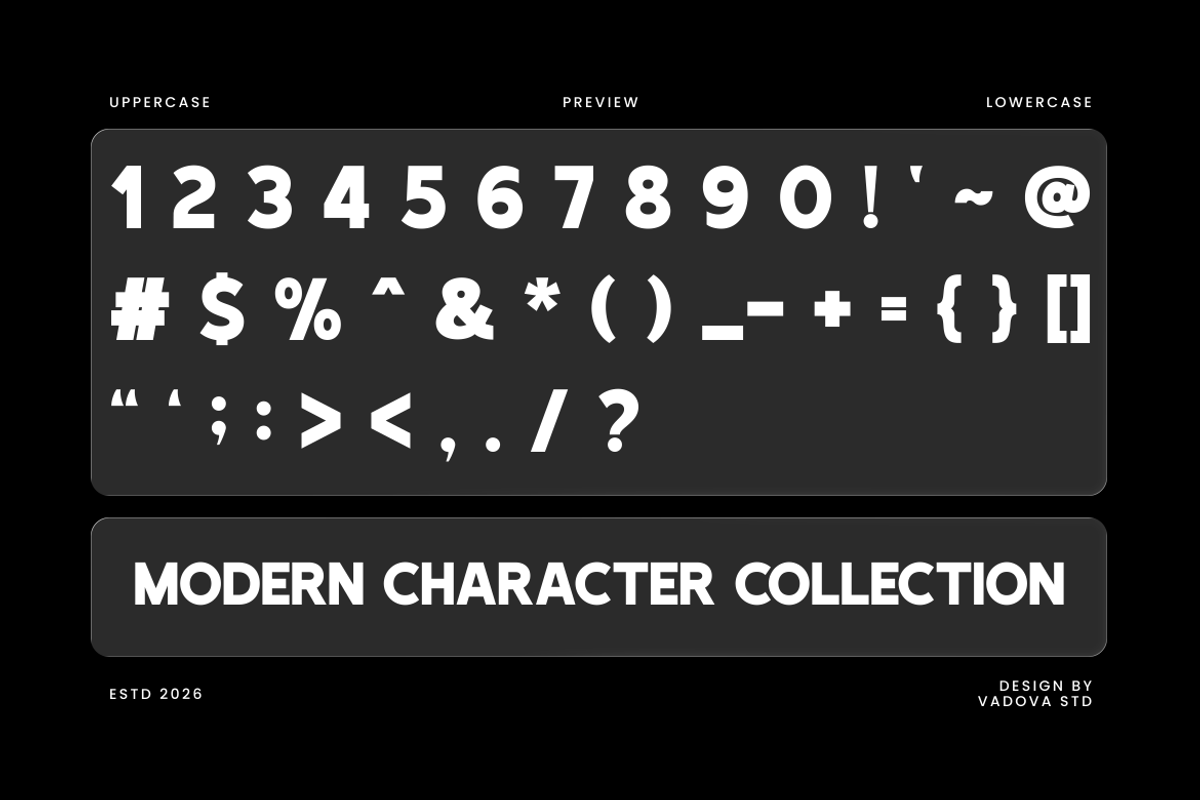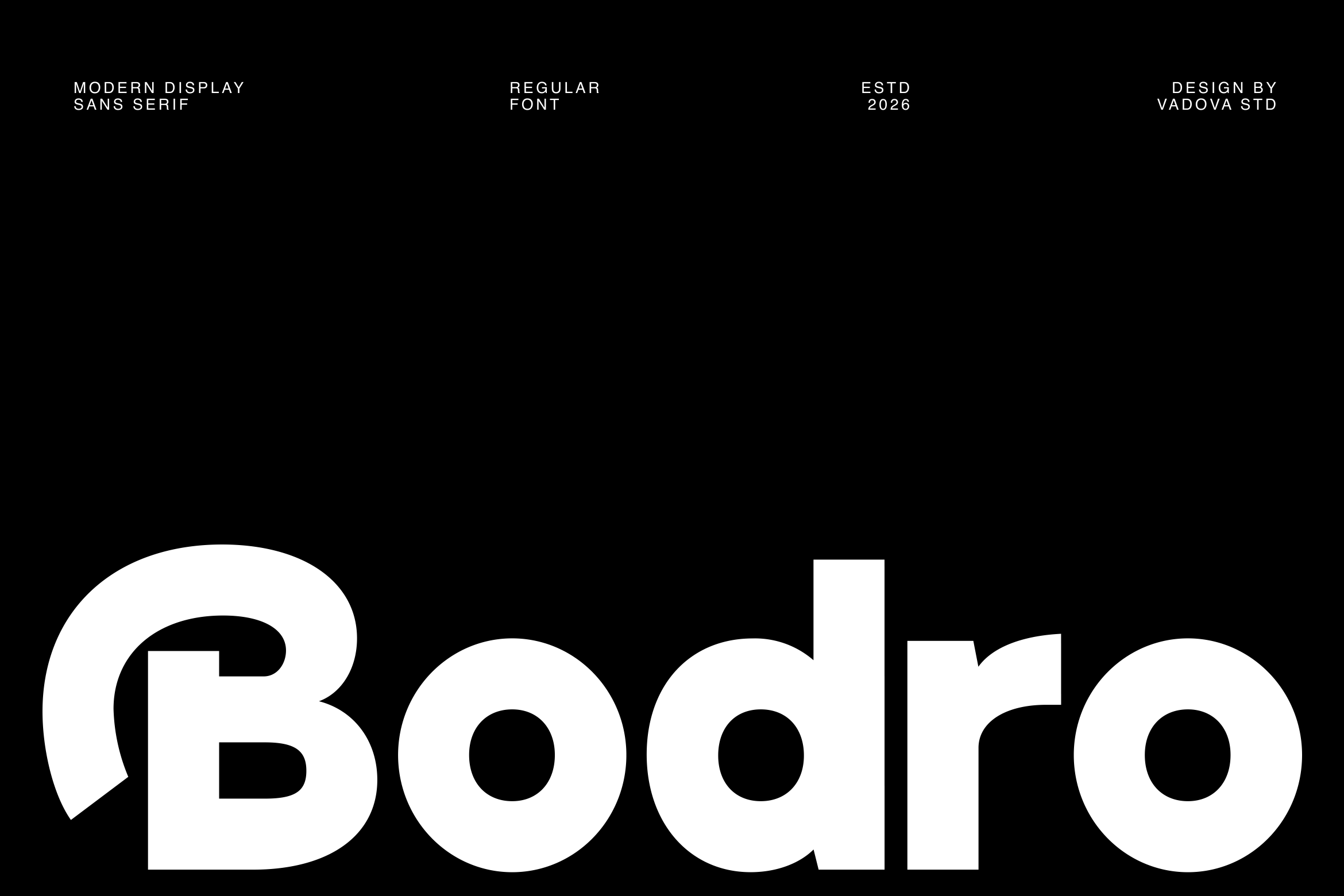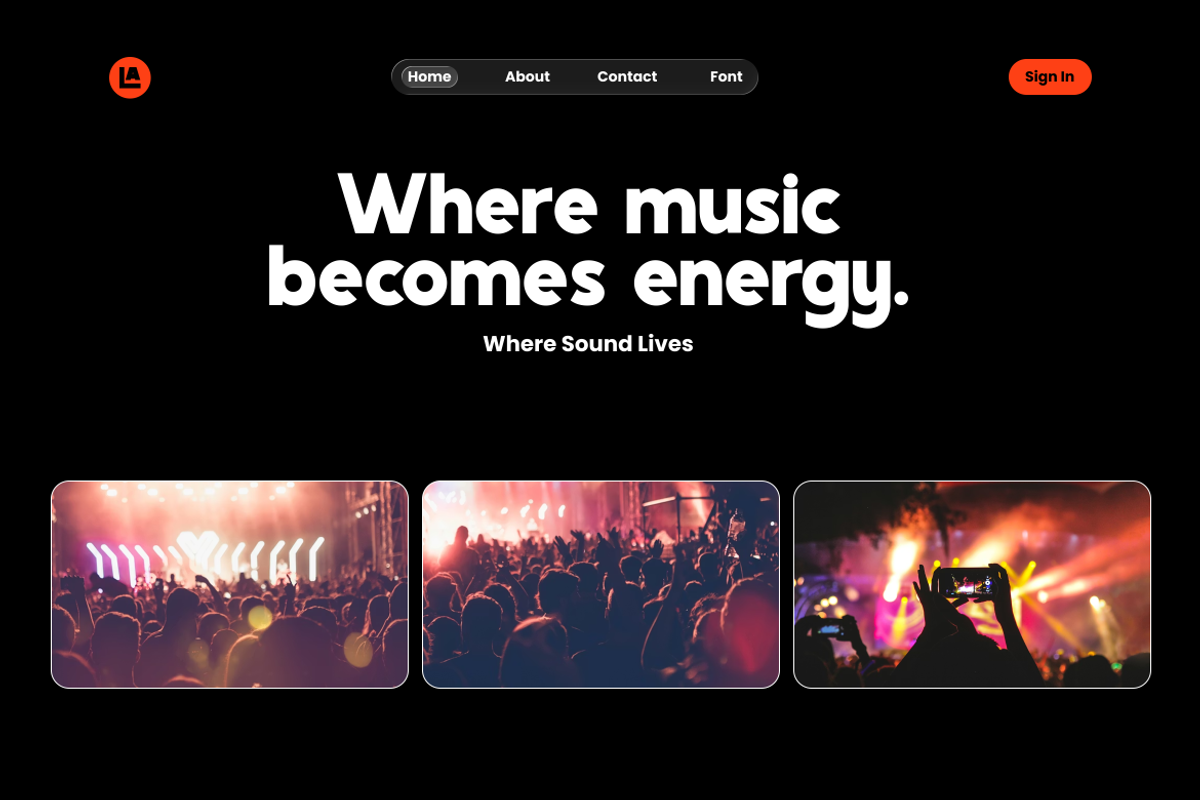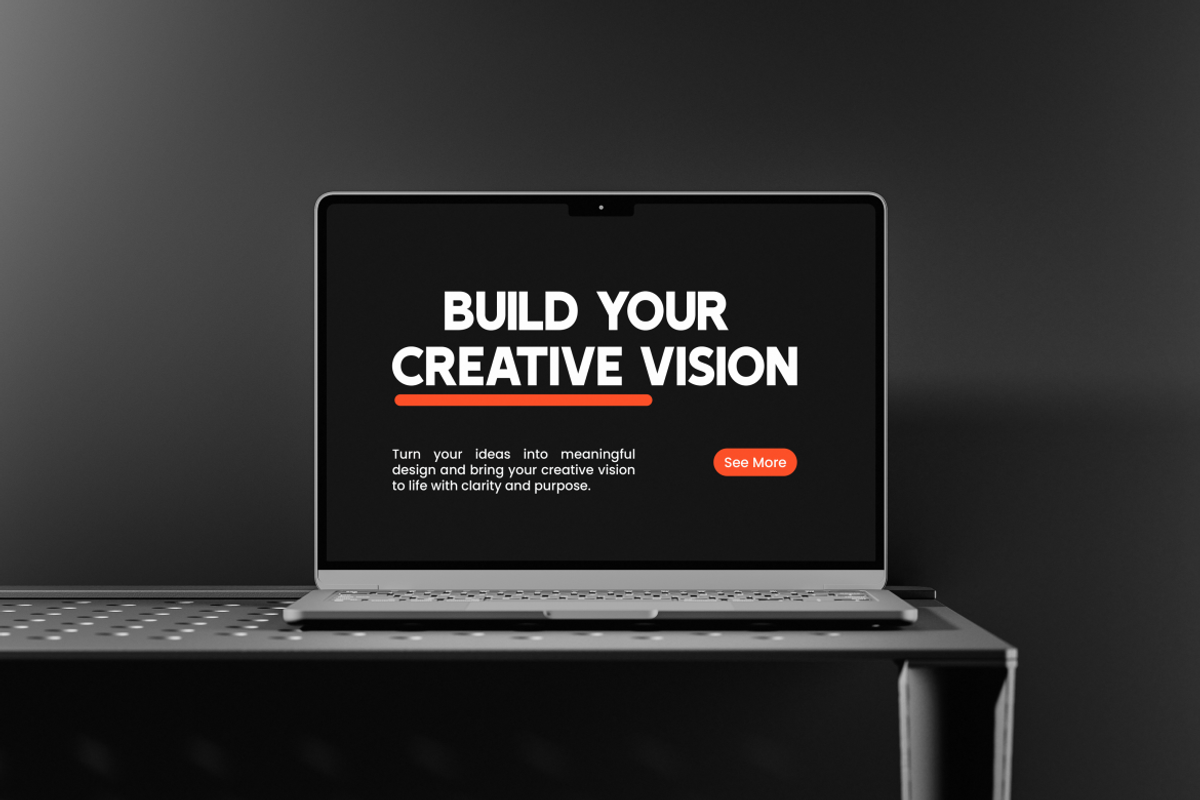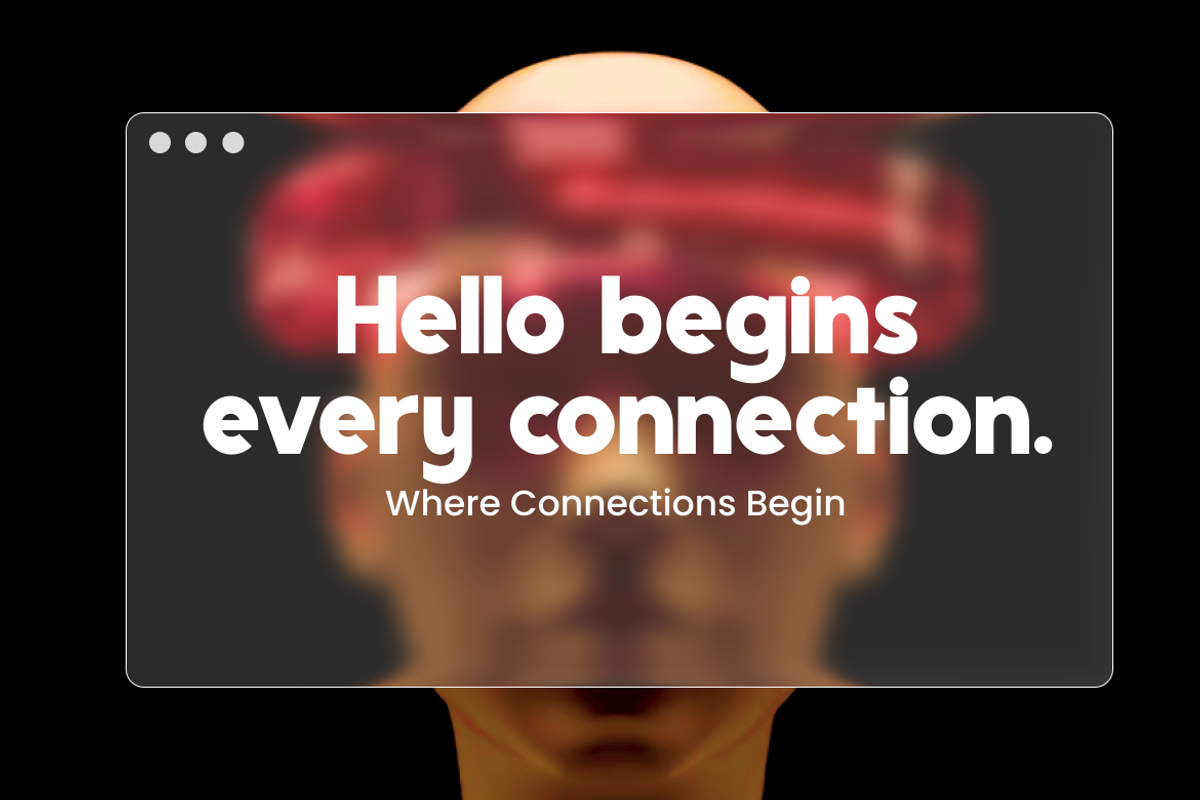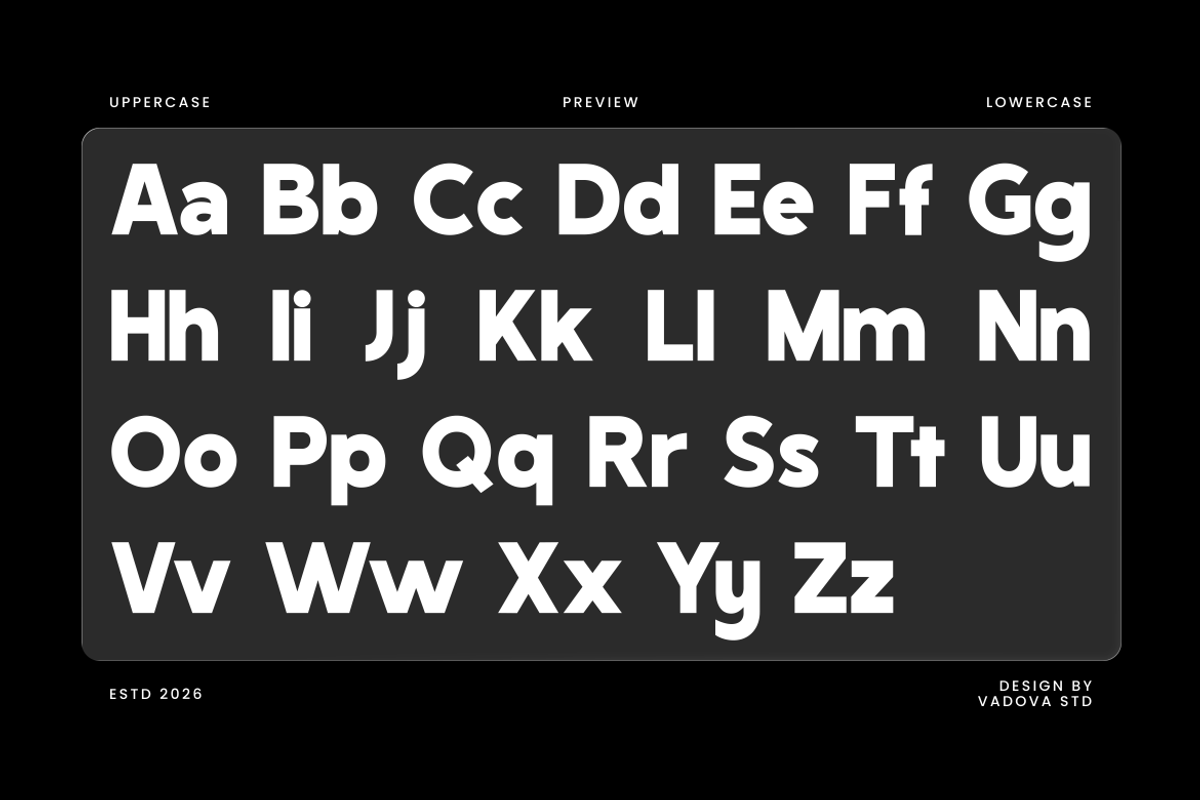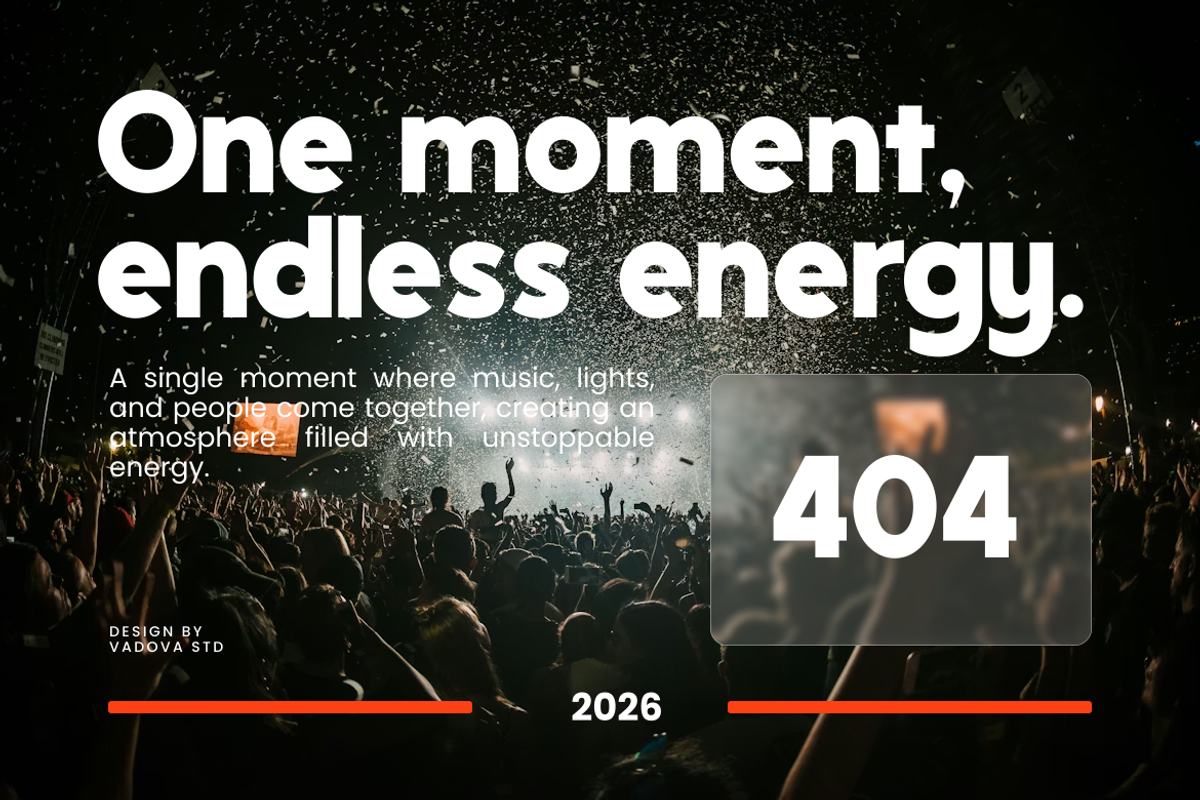
Bodro Modern Sans Serif Display Font
Bodro is a modern bold display sans serif font designed with strong geometric structure and confident contemporary proportions. The letterforms feature thick strokes, smooth curves, and balanced spacing that create a powerful visual presence while maintaining clarity and readability. This typeface includes uppercase, lowercase, numerals, punctuation, and multilingual support, providing a versatile character set suitable for modern design systems.
Bodro is ideal for modern branding systems, advertising headlines, poster design, editorial layouts, packaging design, website typography, UI/UX interfaces, and contemporary graphic design projects. The bold structure and clean geometry make it particularly effective for strong visual communication and impactful headline typography.
- Bold modern sans serif construction with strong geometric character
- Clean minimal letterforms designed for powerful visual impact
- Rounded curves combined with sturdy terminals for a balanced contemporary feel
- Consistent stroke thickness that strengthens clarity in large display sizes
- Optimized spacing that enhances readability for headlines and bold typography layouts
- Bold brand identities and modern logo design
- Eye-catching headlines for posters, banners, and advertising
- Contemporary editorial layouts and magazine titles
- Product packaging and branding that requires strong visual impact
- Social media graphics and digital marketing materials with bold modern typography
Create strong and contemporary visuals with Bodro